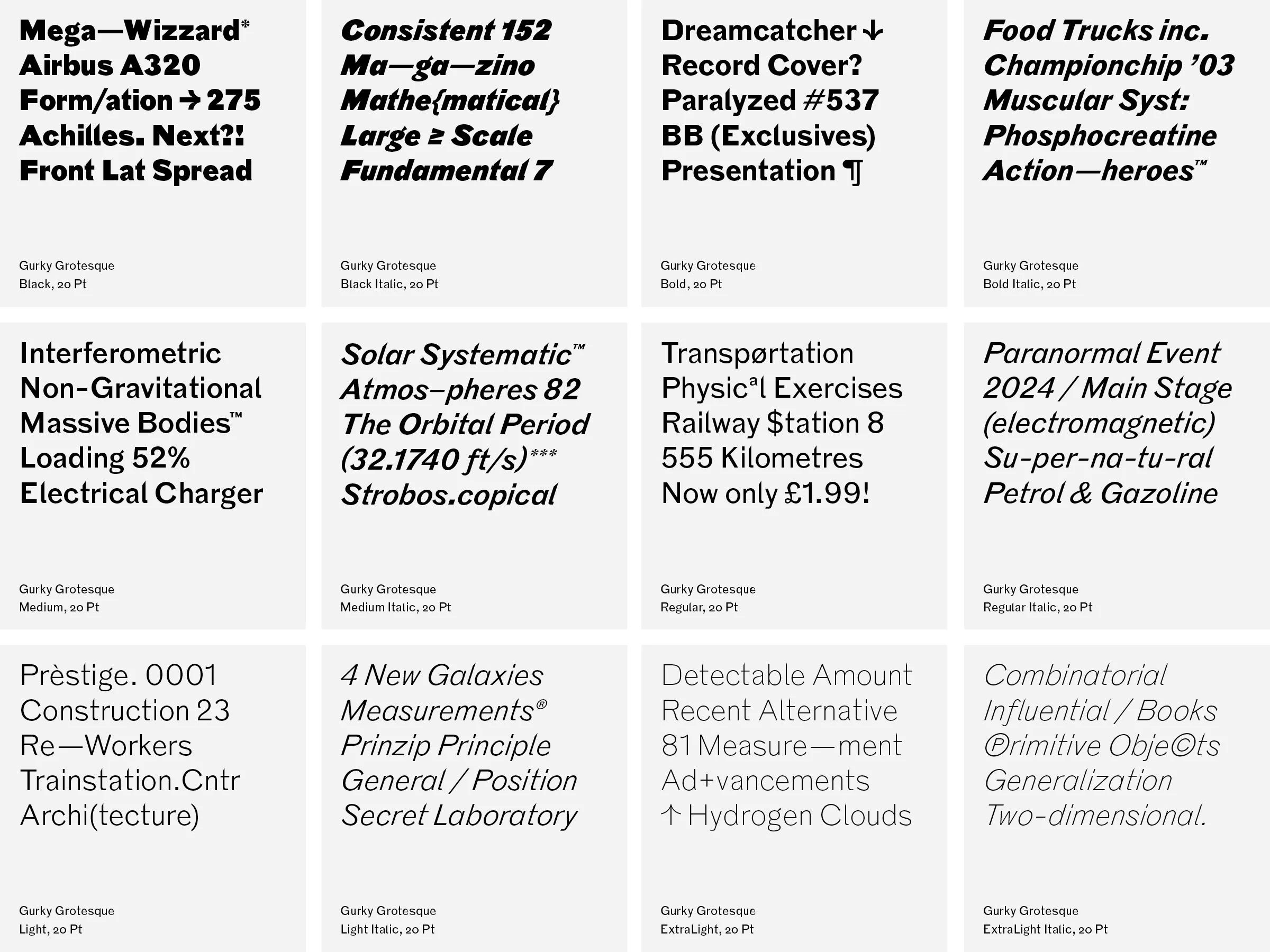
Gurky Grotesque
A grotesque sans from HvD Fonts with details too limited to assess beyond its name and provenance.
Gurky Grotesque is published by HvD Fonts, a Munich-based foundry with a track record in refined text and display grotesques. The page was inaccessible at time of cataloguing, so weight range, language coverage and full stylistic detail could not be confirmed. The name suggests a quirky or characterful grotesque rather than a neutral workhorse.
The name explicitly identifies this as a grotesque sans-serif; HvD Fonts is known for producing contemporary grotesque and humanist sans families.